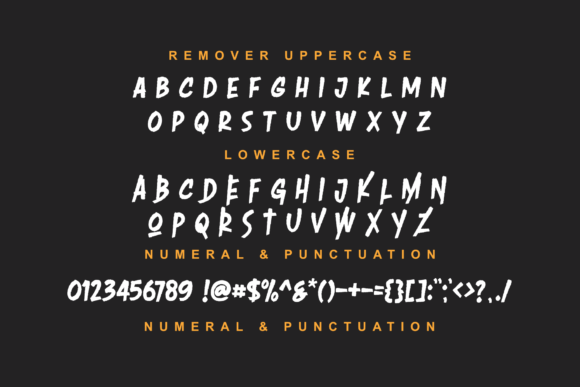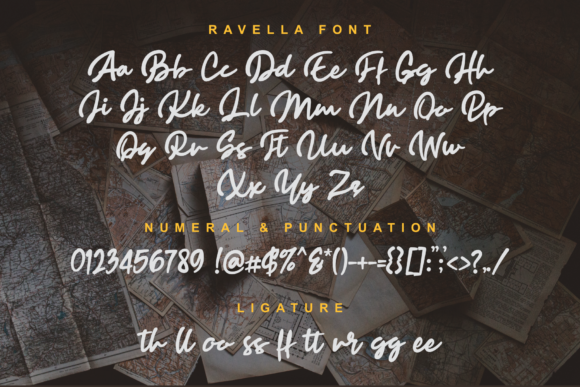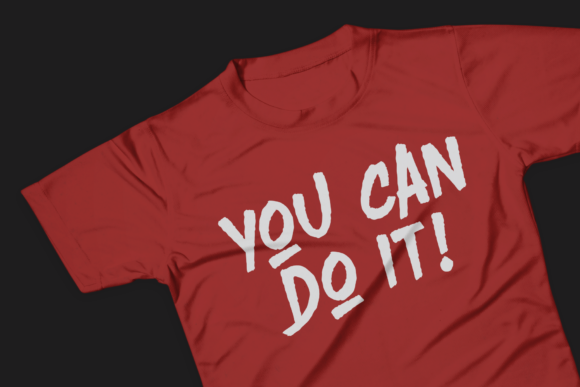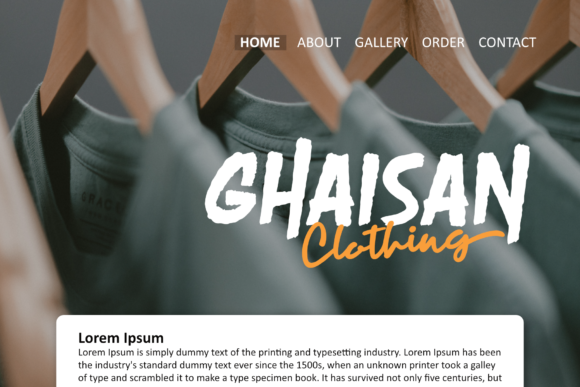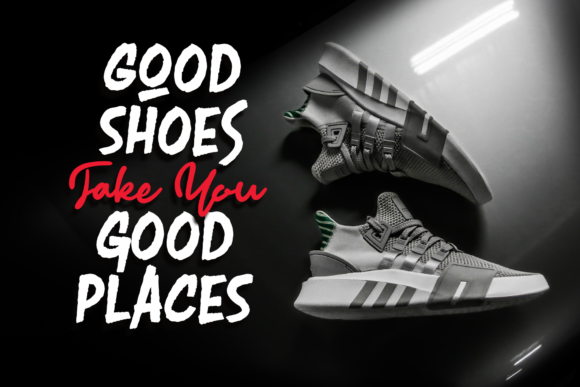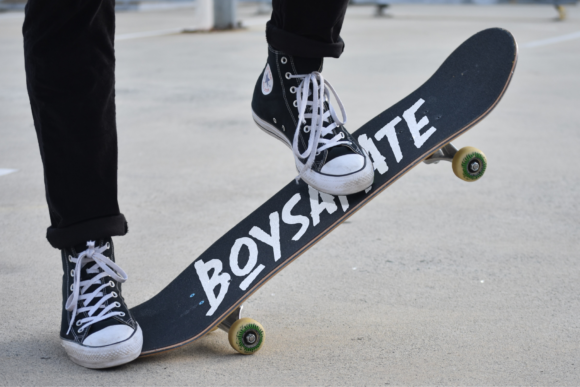
Introduction to Remover Ravella Font Font
Fonts play a crucial role in design, and the Remover Ravella Font font is a typeface that brings both character and versatility to any project. Whether you’re working on a branding project, a website, or a print design, the Remover Ravella Font font offers a unique style that can elevate your work.
Remover Ravella is a spectacular duo font (display and script).
Incredibly versatile, this font fits a wide pool of designs, elevating them to the highest levels Add this font to your favorite creative ideas and notice how it makes them come alive.
Key Features of Remover Ravella Font Font
Why Choose Remover Ravella Font Font?
The Remover Ravella Font font is more than just a typeface – it’s a design tool that helps you communicate your message with style and clarity. Its unique character set and versatile design make it suitable for a wide range of applications, from elegant invitations to bold headlines.
With its carefully crafted letterforms and balanced proportions, the Remover Ravella Font font ensures readability and visual appeal across all mediums.
What makes Remover Ravella Font font special?
The Remover Ravella Font font stands out with its unique design, exceptional readability, and versatility across various design applications.